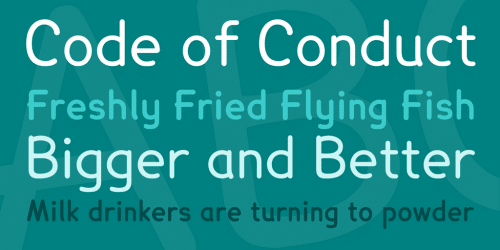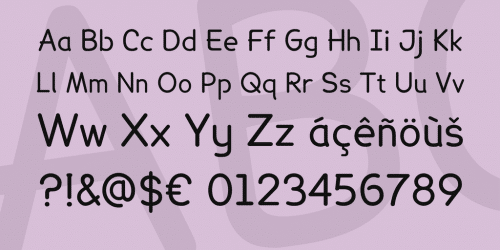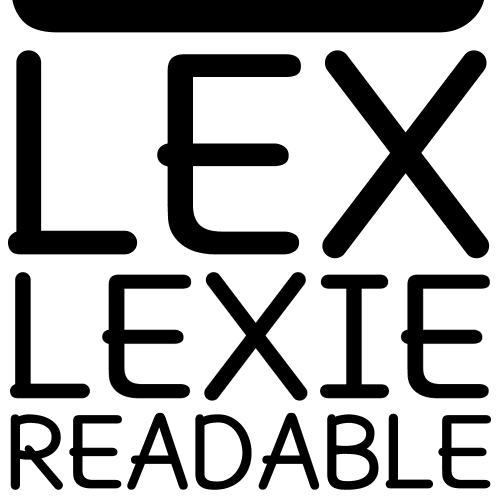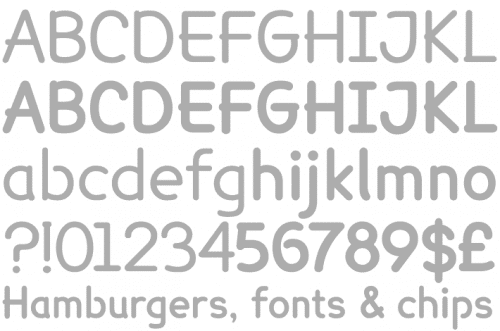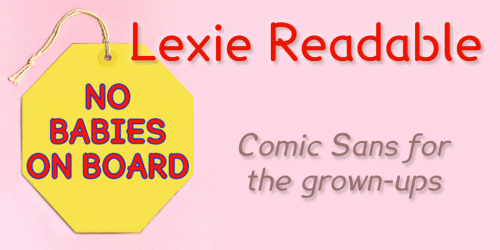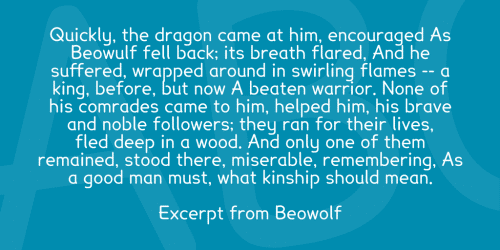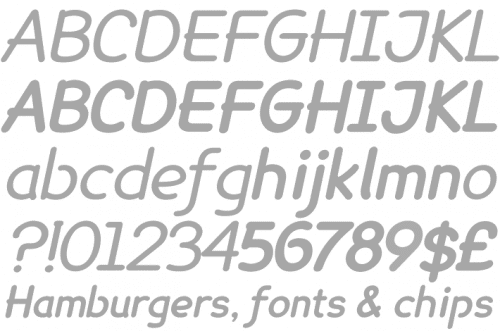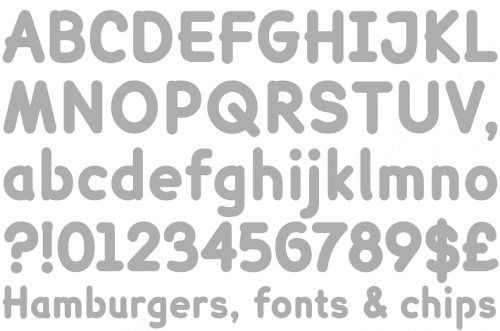
Lexie Readable (formerly Lexia Readable) was designed with accessibility and legibility in mind, an attempt to capture the strength and clarity of Comic Sans without the comic book associations.
Features like the non-symmetrical b and d, and the handwritten forms of a and g may help dyslexic readers. You can read more about the story behind Lexie Readable in the Kernel.